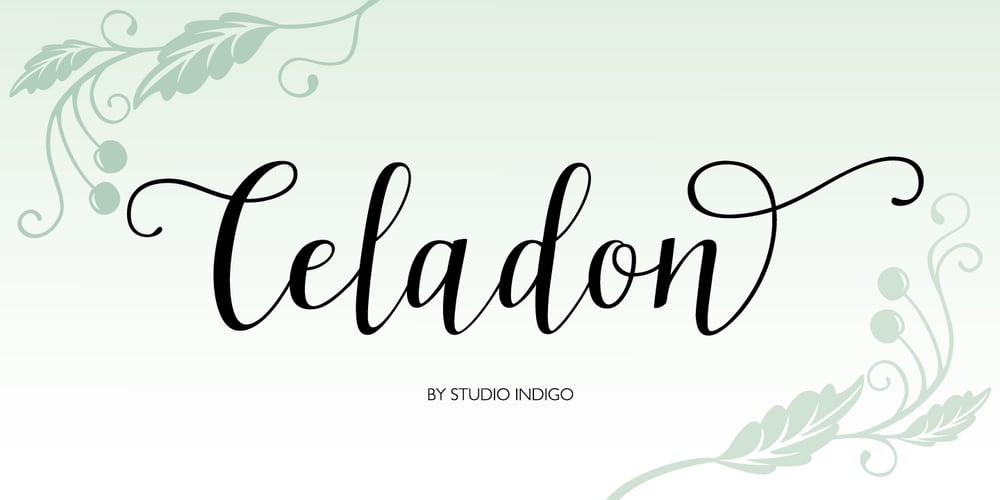
Celadon Font Family was designed by Helena Öhman and published by Studio Indigo. Celadon contains 1 styles and family package options. Celadon is a Modern Calligraphic Script Font based on letters written with a pointed pen. Celadon is an elegant font with high contrast between thick and thin lines. It has a slightly bouncy style butcan still be considered a balanced and classic font. The flourished alternate letters adds that little extra touch to your invitations and projects. All the letters, both uppercase and lowercase has one or more alternate letters. The alternate letters are available also for all the diacritics. Multilingual support for all European languages.